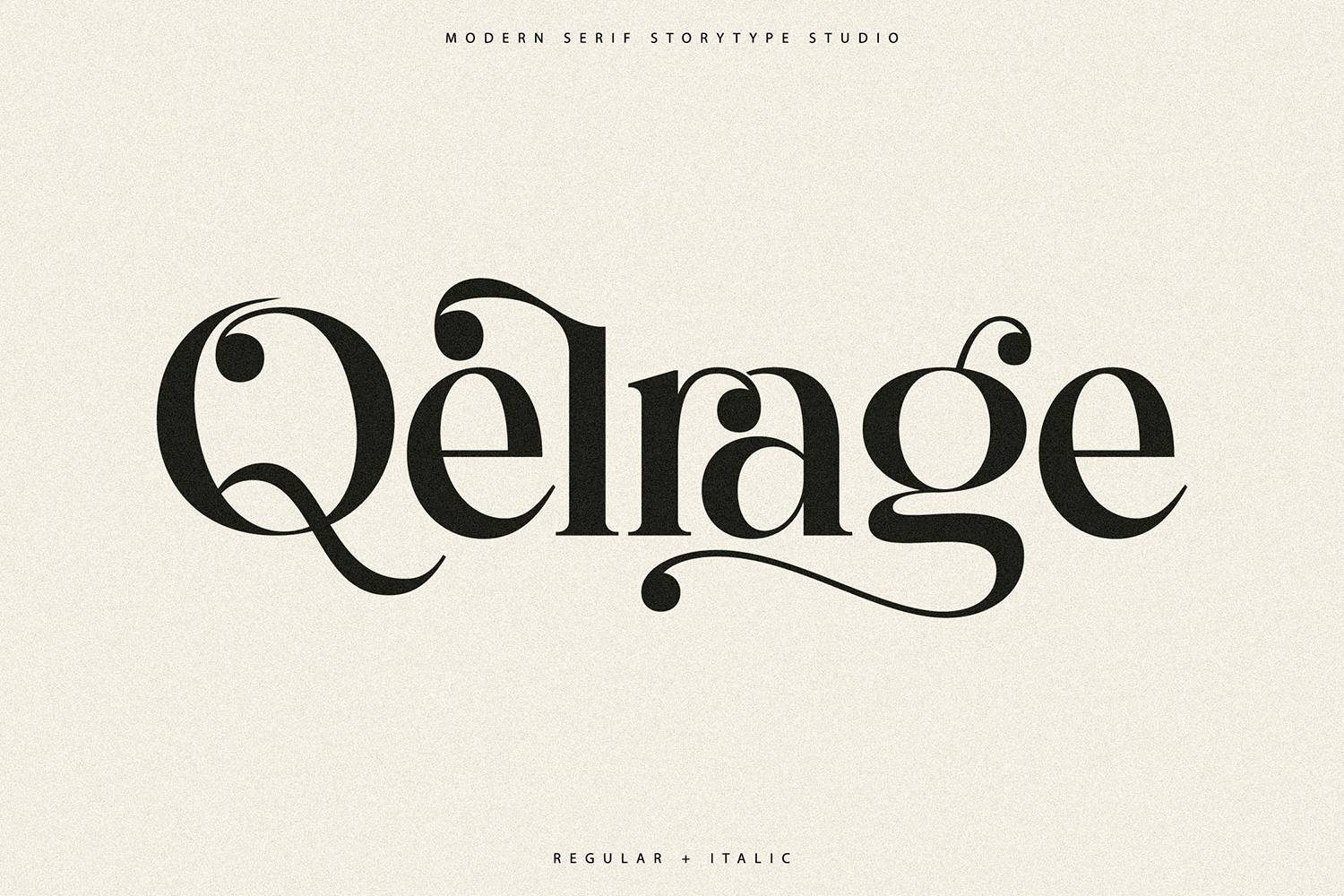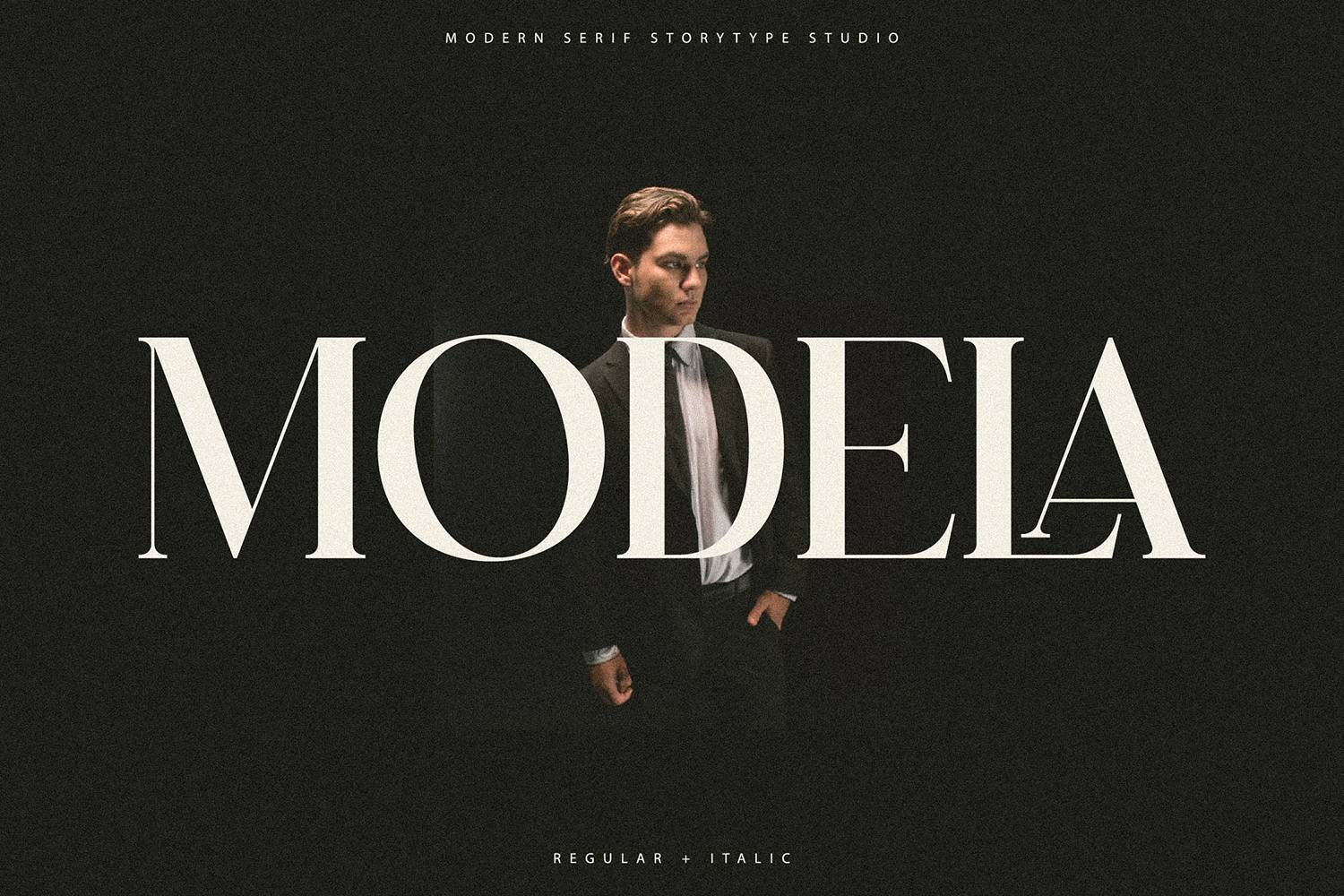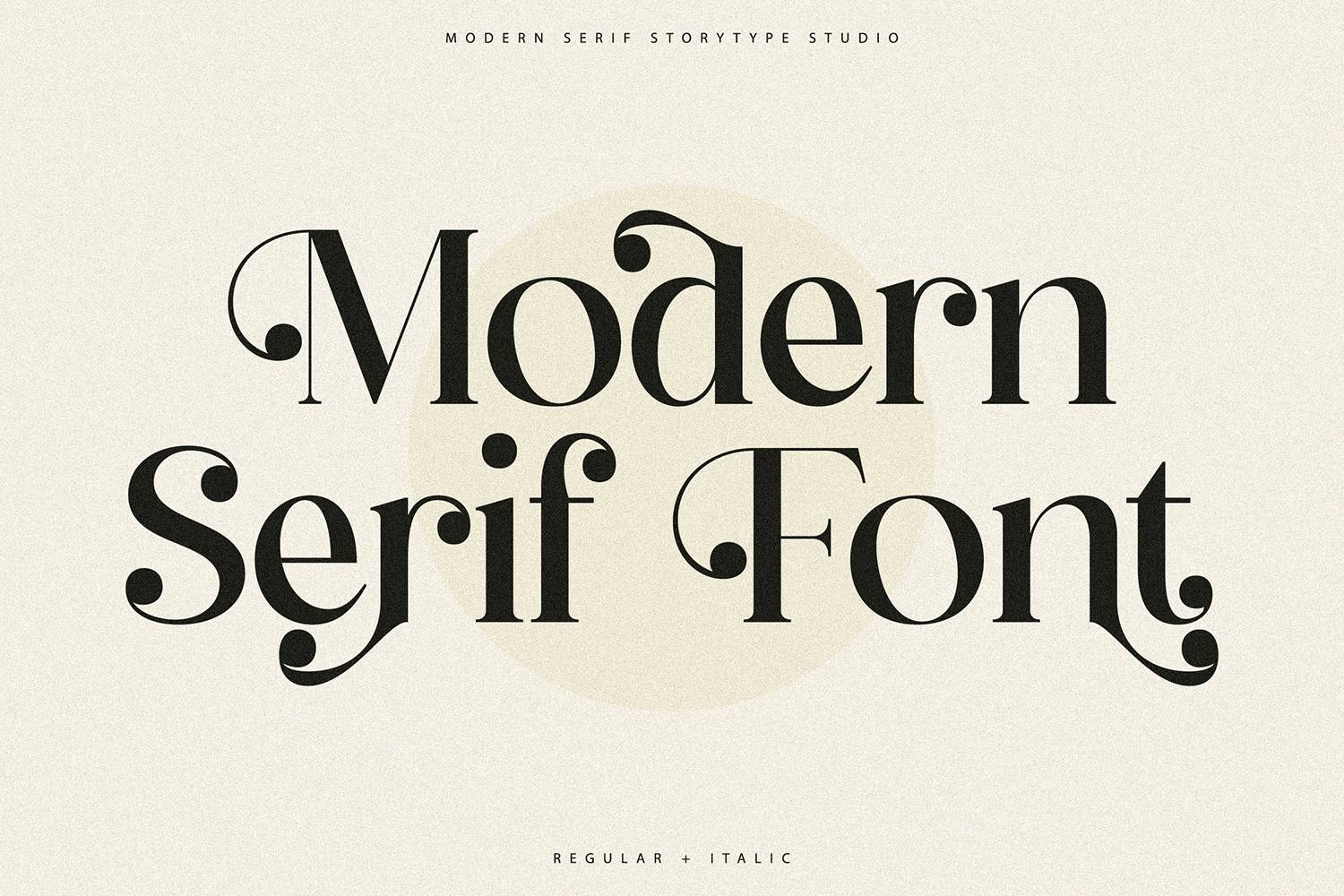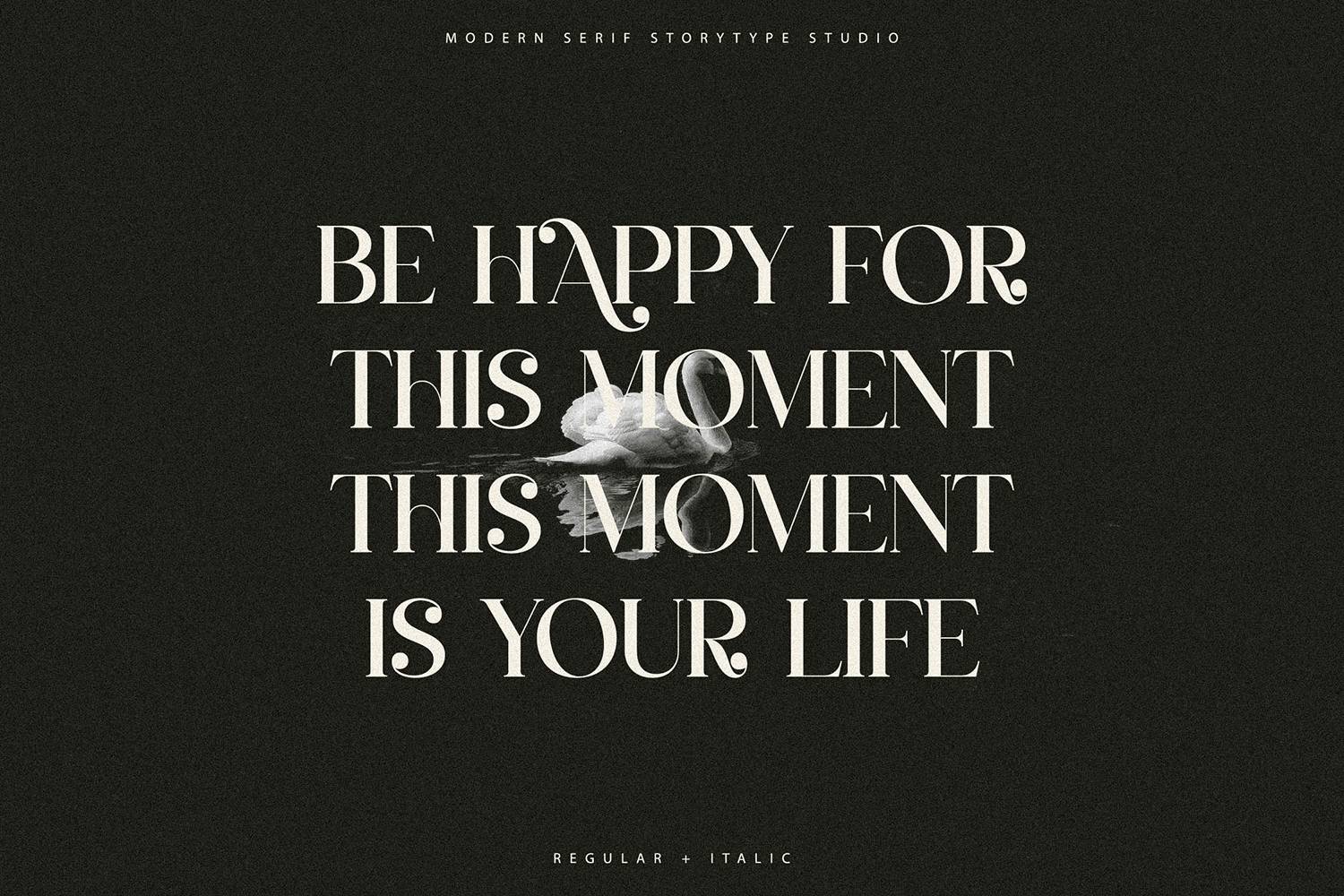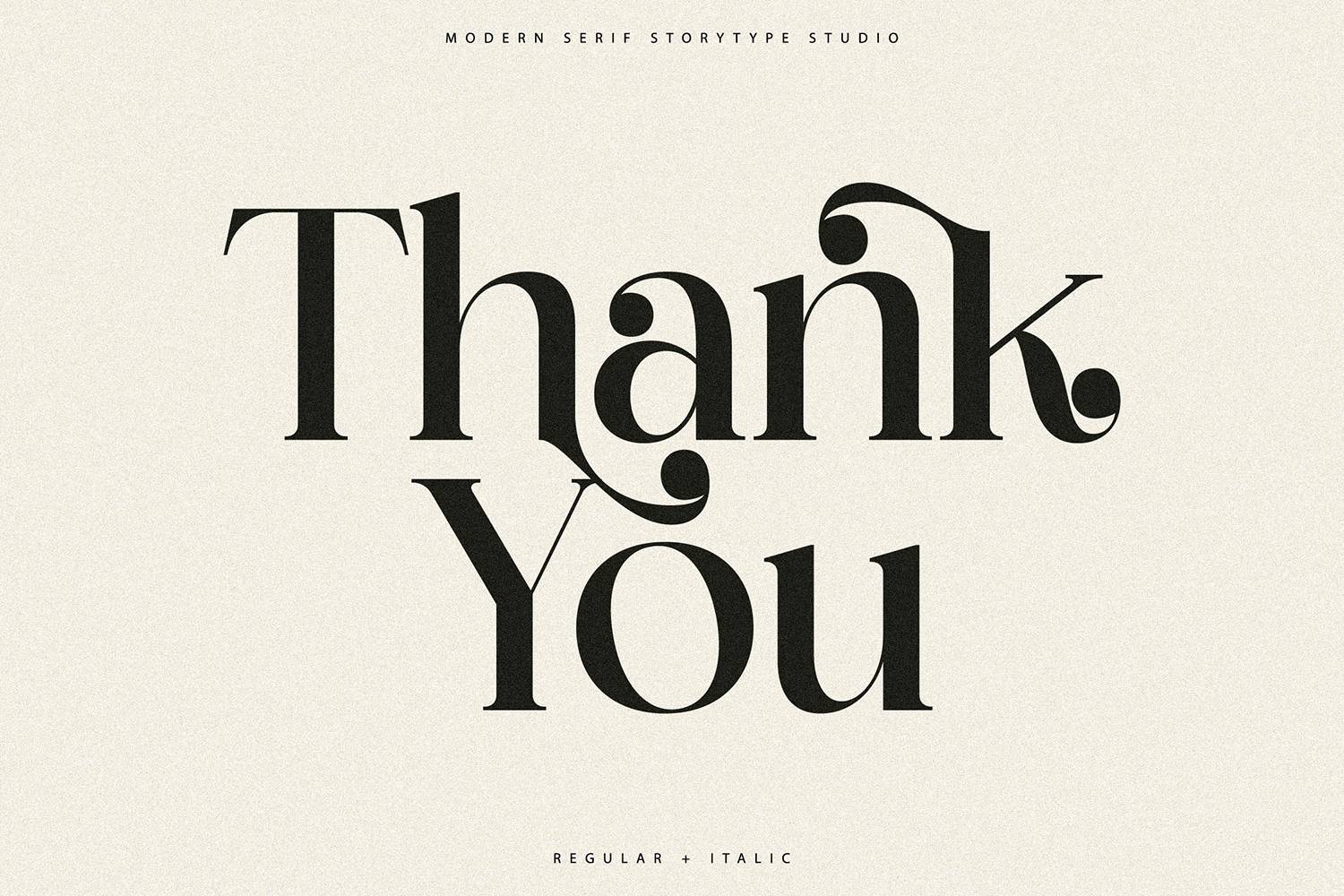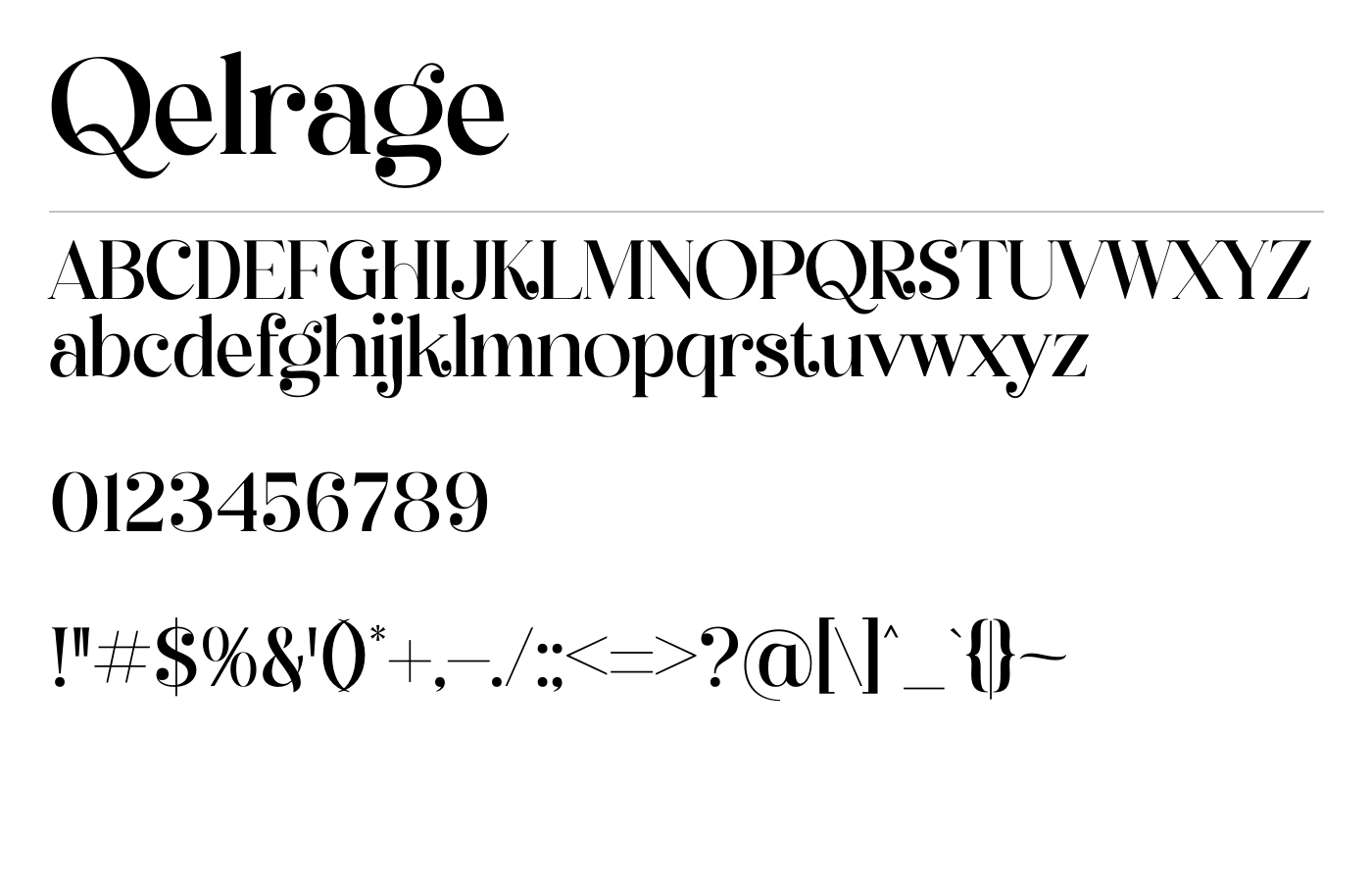
Qelrage is a sophisticated serif font characterized by its high contrast between thick and thin strokes and elegant bracketed serifs, combining classic refinement with modern flair. Its distinct features include unique, decorative terminal details and a medium x-height that balance readability with stylish expression, making it perfect for luxury branding, editorial headlines, and fashion-focused design projects that seek a touch of elegance and personality.
Qelrage Font
About Qelrage Font